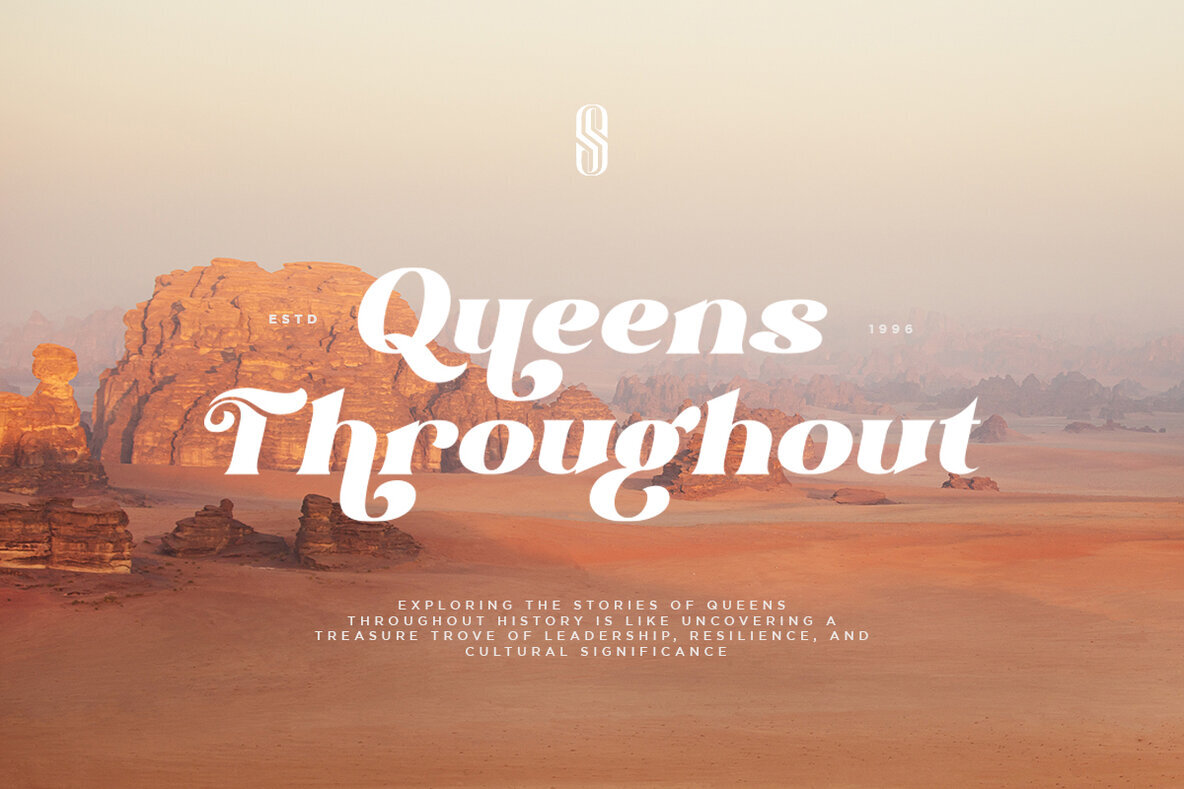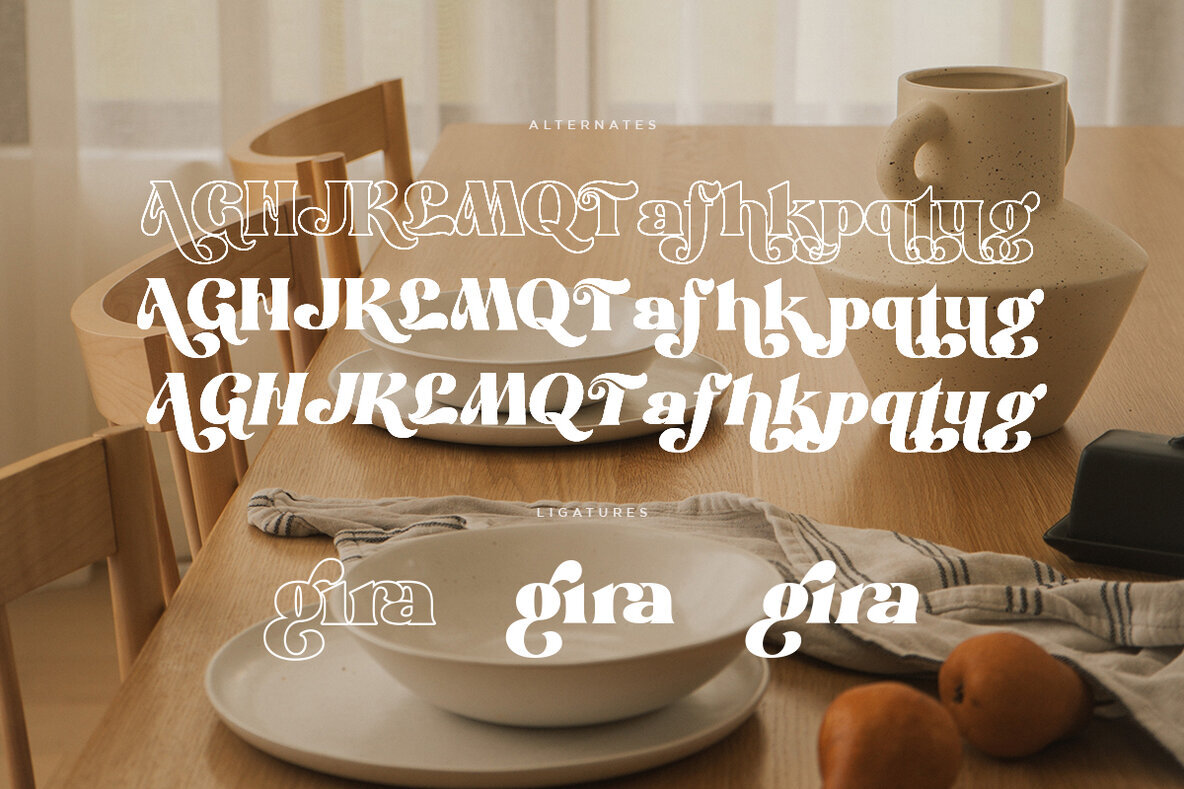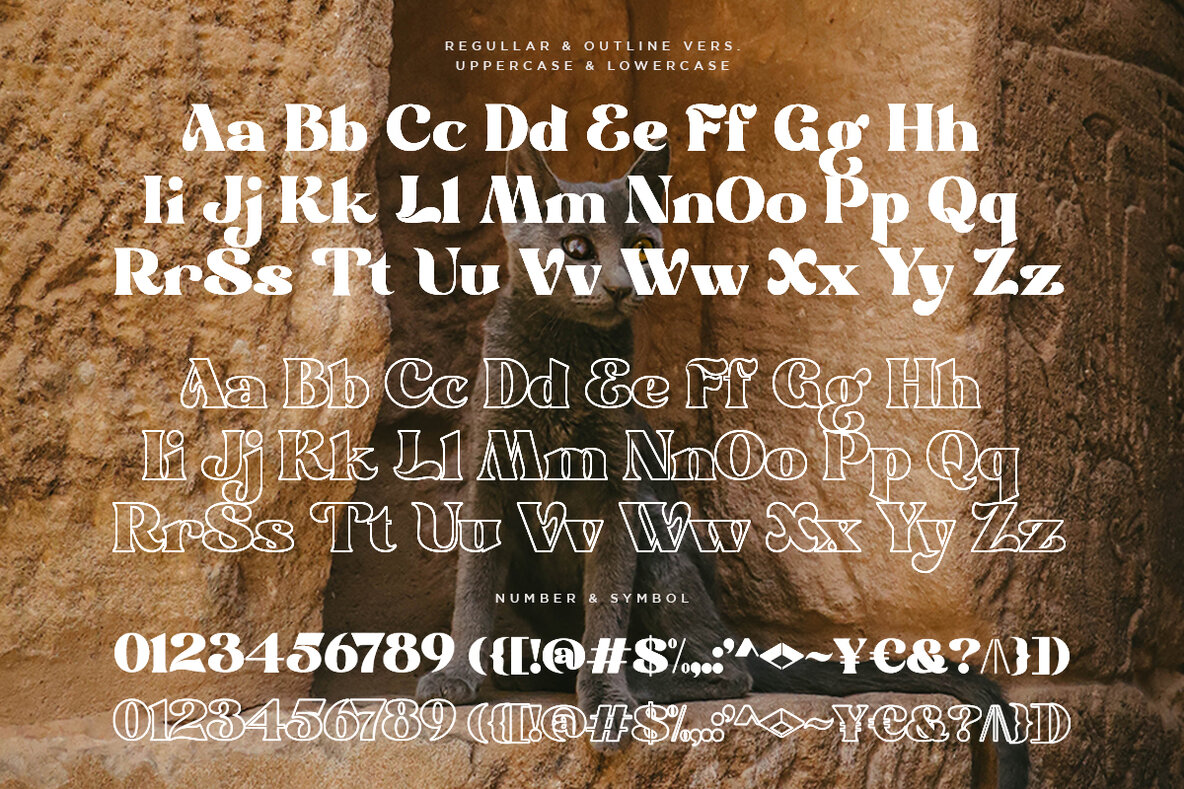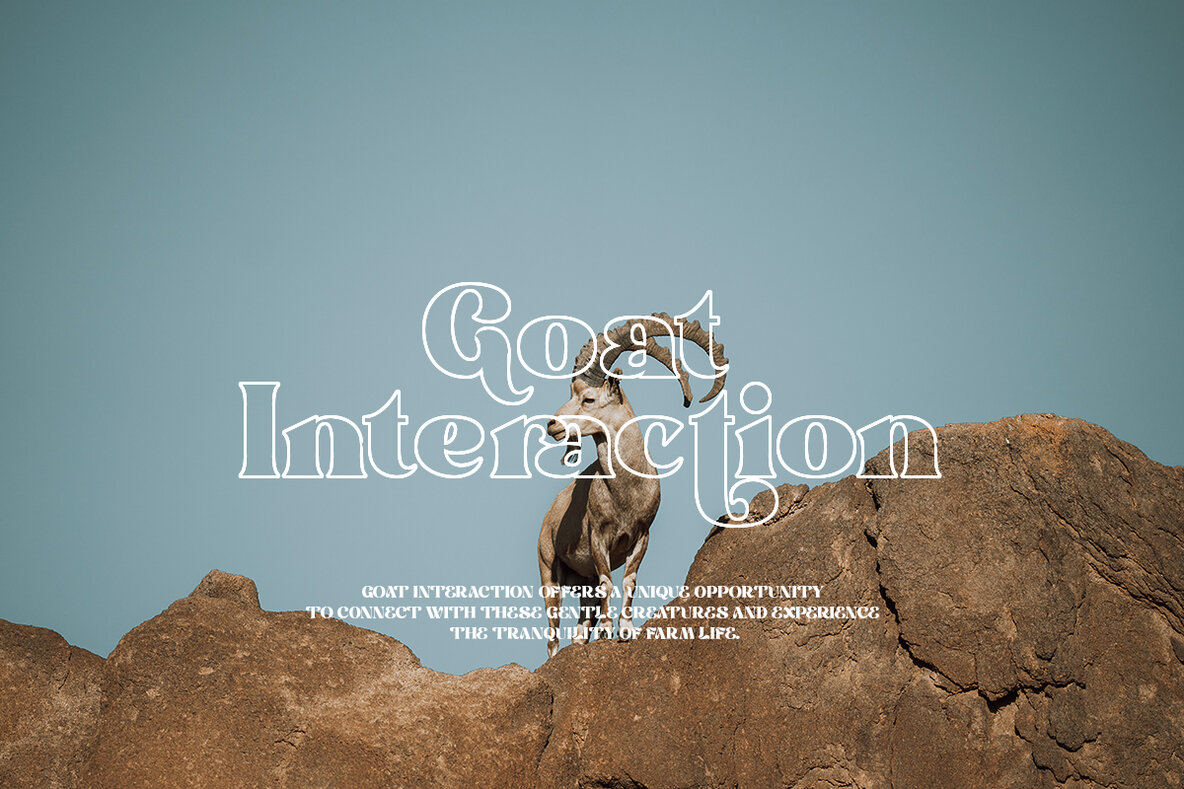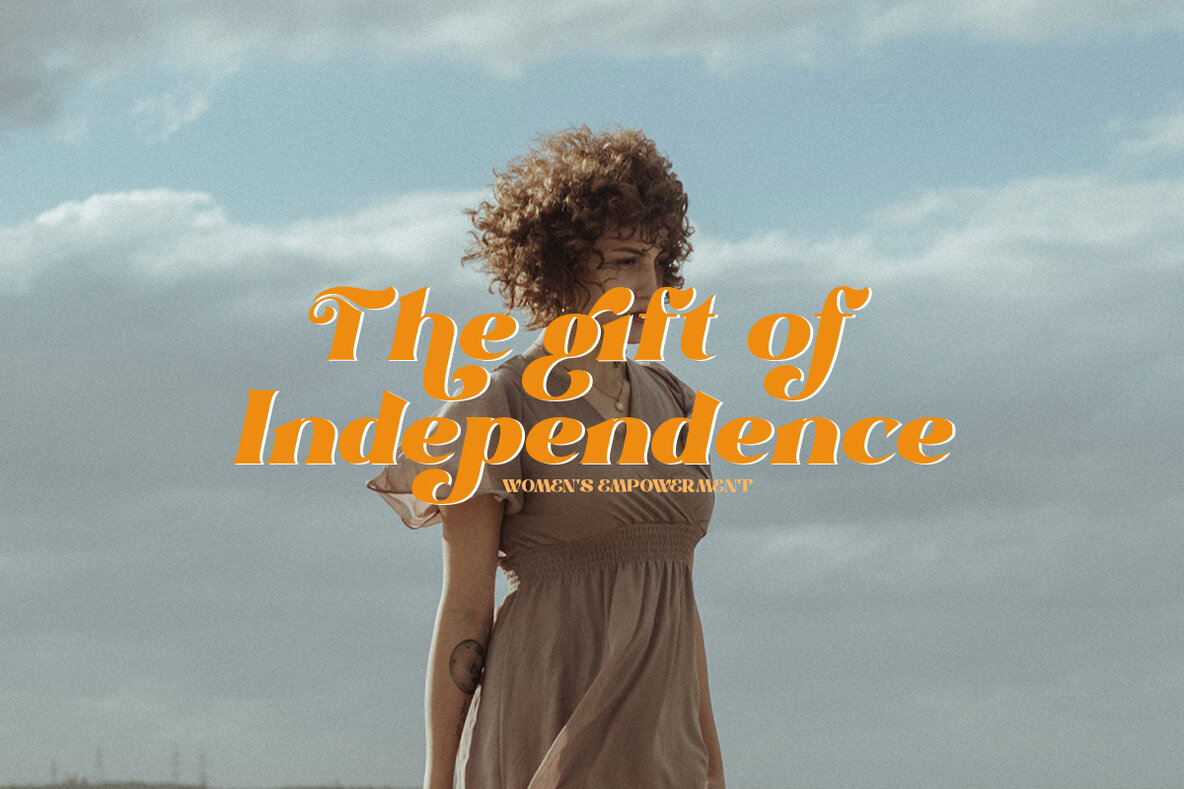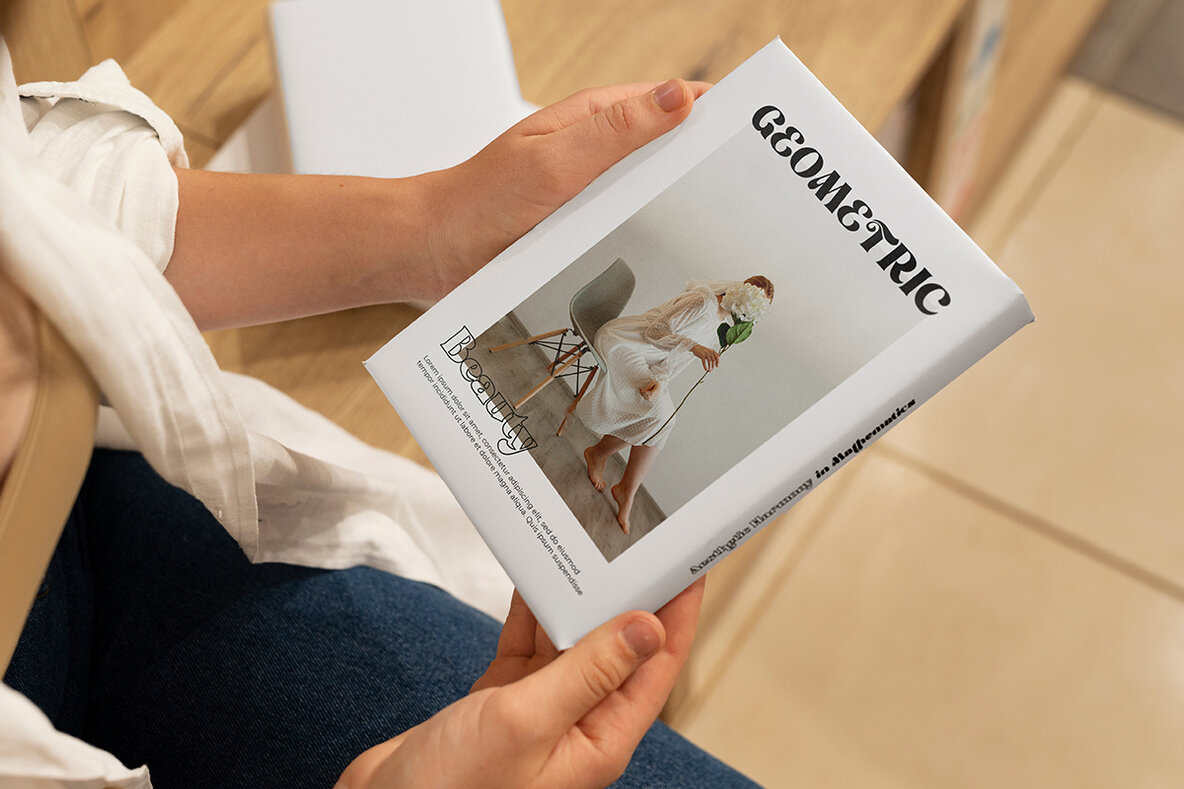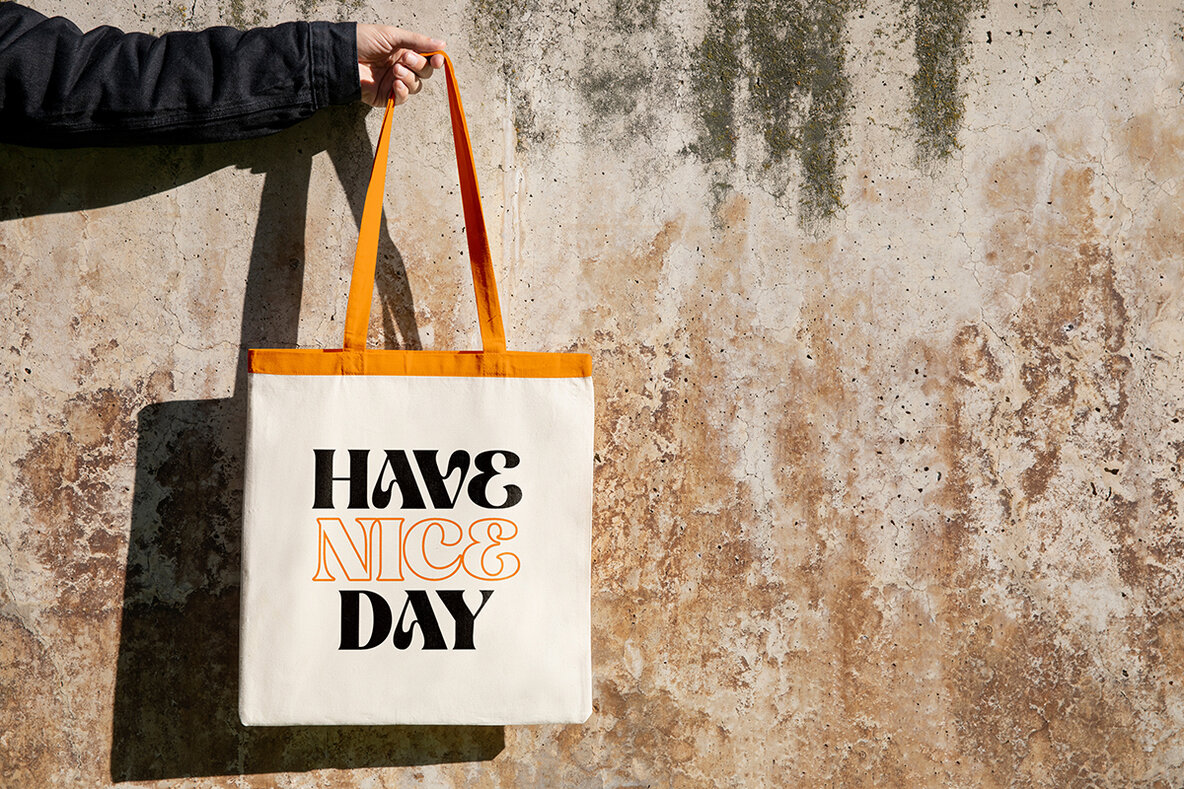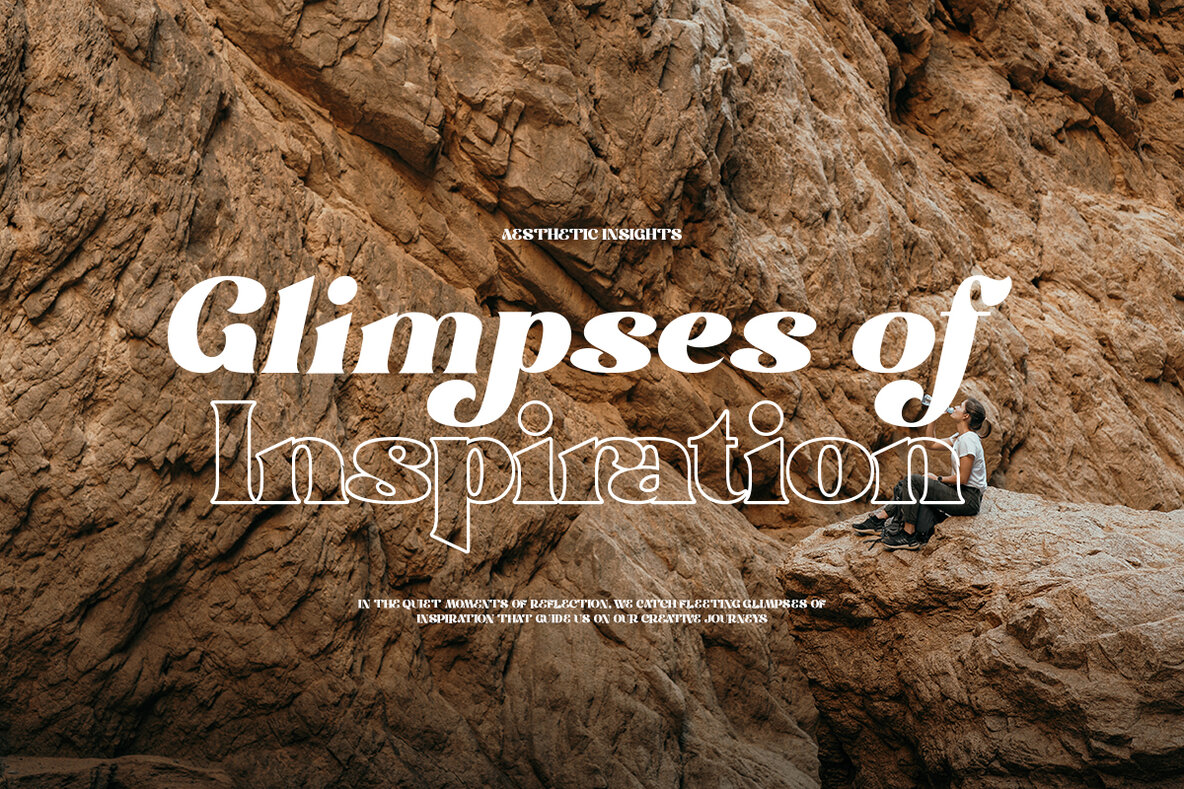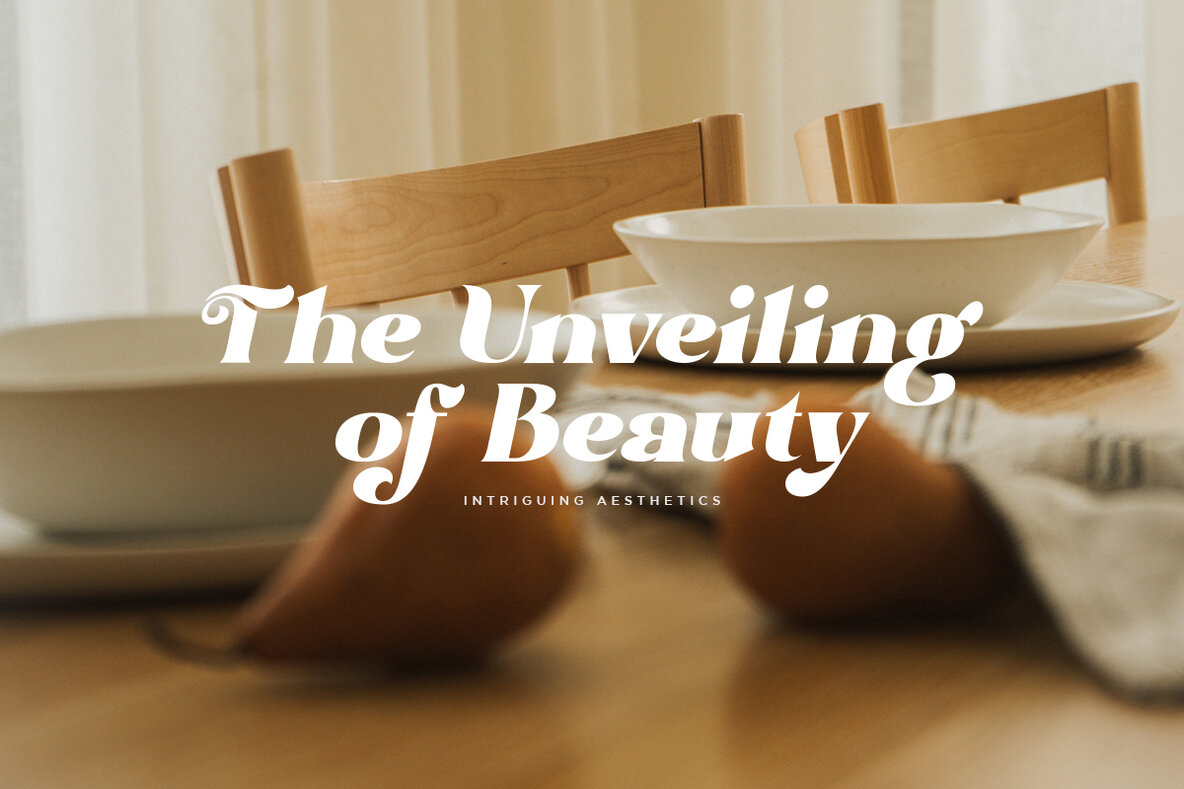
Emerge Font
The Emerge Font is a captivating typeface with a unique and bold serif display style. Featuring distinctive thick lines, each letter exudes strength and firmness. This font combines classic serif elements with modern touches, creating a visually striking appearance. Emerge Font evokes elegance while maintaining a modern edge, making it ideal for graphic design projects, posters, and layouts that require unforgettable visual appeal.Emerge Font: Bold Serif Display by Sohel Studio